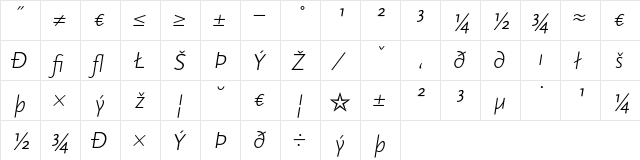
ScalaSans Exp Light Italic
Design Context for ScalaSans Exp Light Typeface
ScalaSans Exp Light offers clean, dependable letterforms without strong stylistic allegiance, making it a practical choice for designers who need flexibility. The slanted form adds forward momentum and visual energy. The delicate stroke weight brings airiness and refinement to layouts.
Pro Tip: Use ScalaSans Exp Light for emphasis, pull quotes, and subheadings where its slanted energy can add rhythm to the layout.